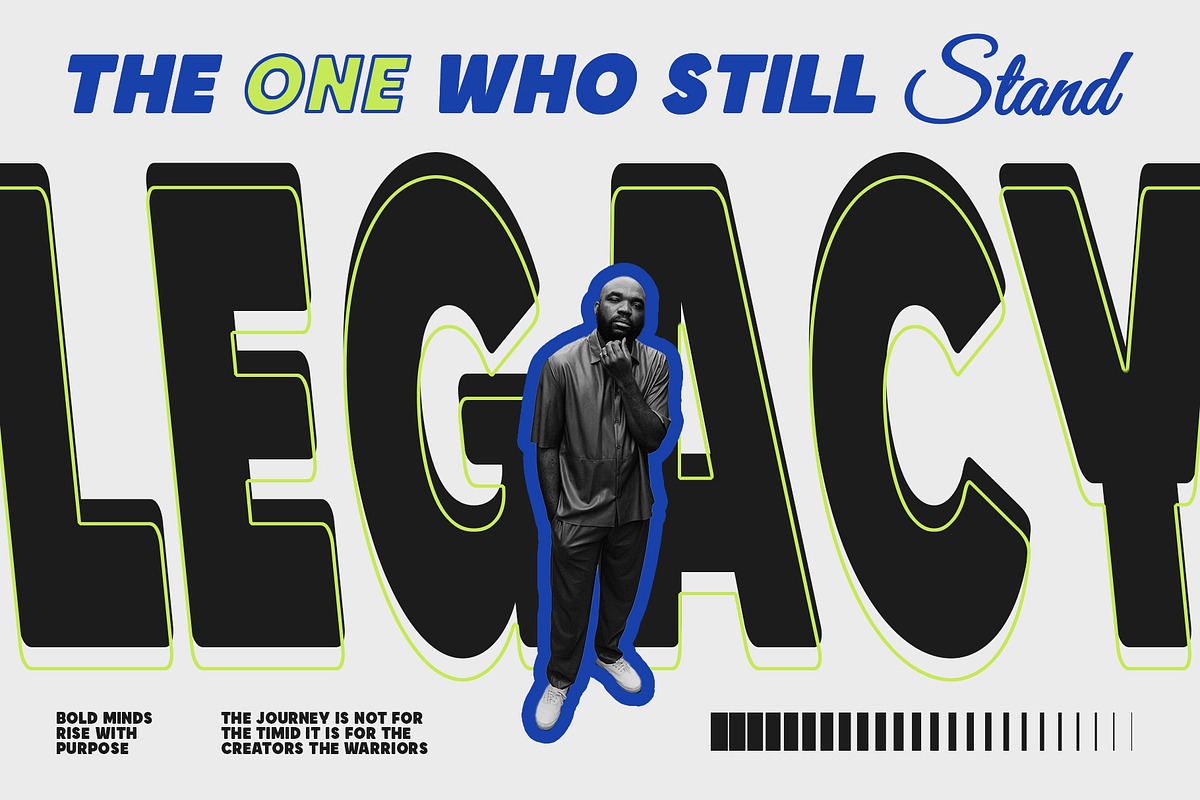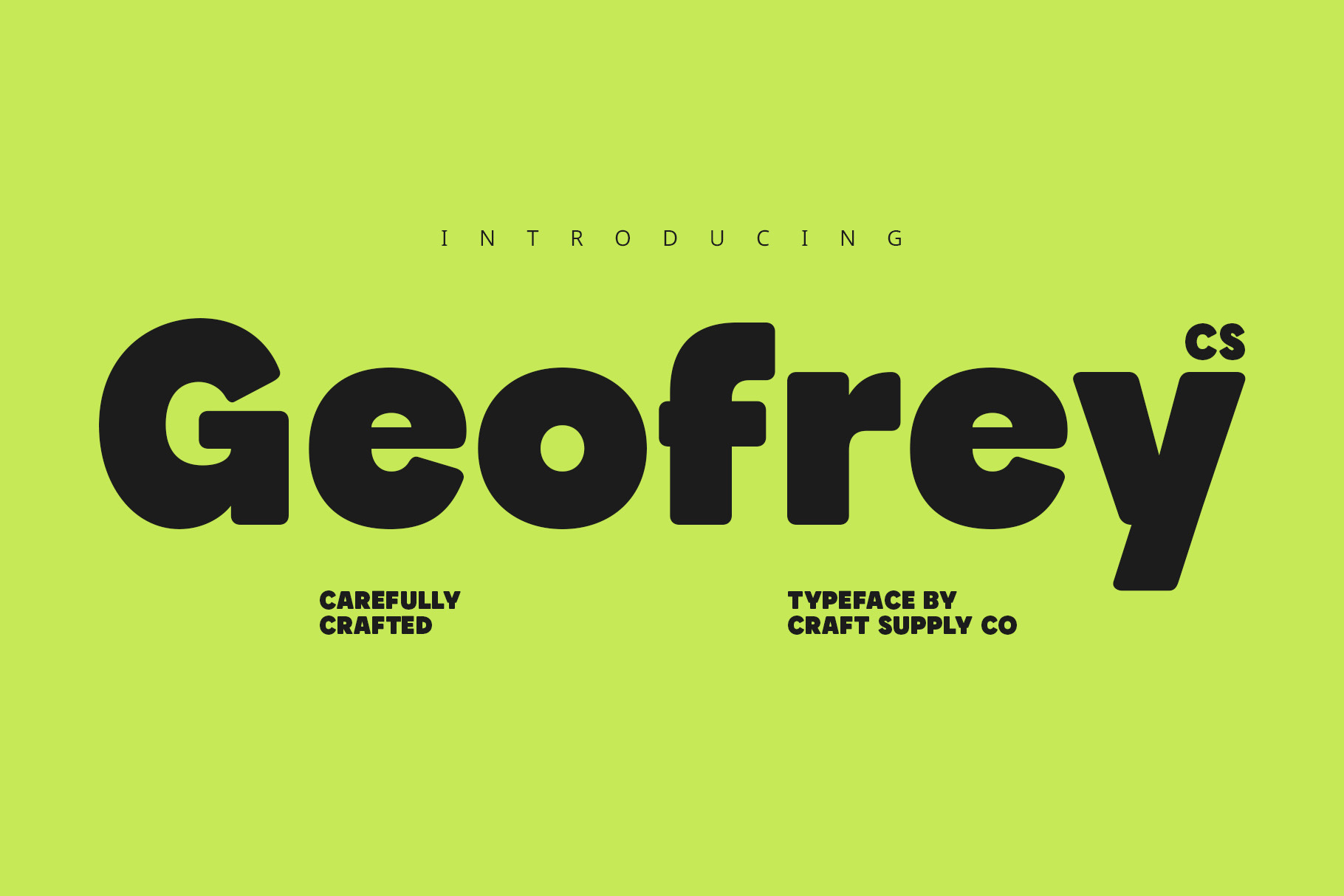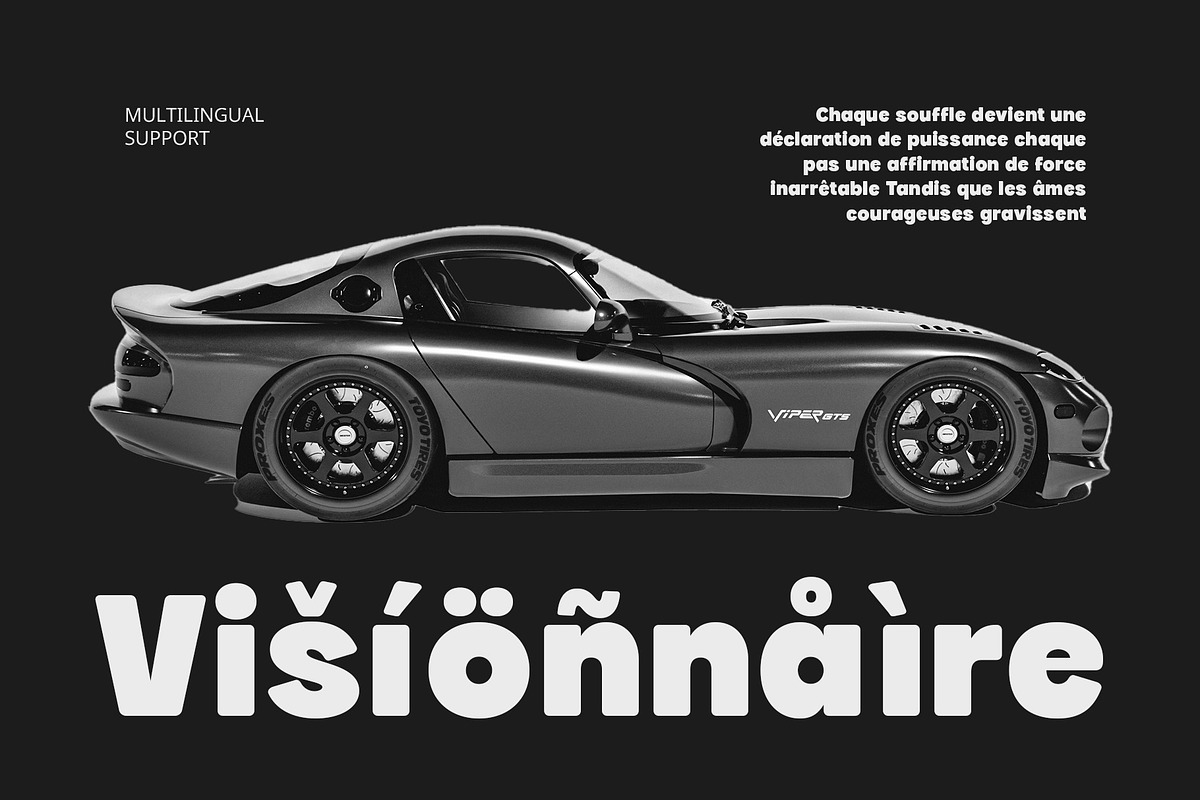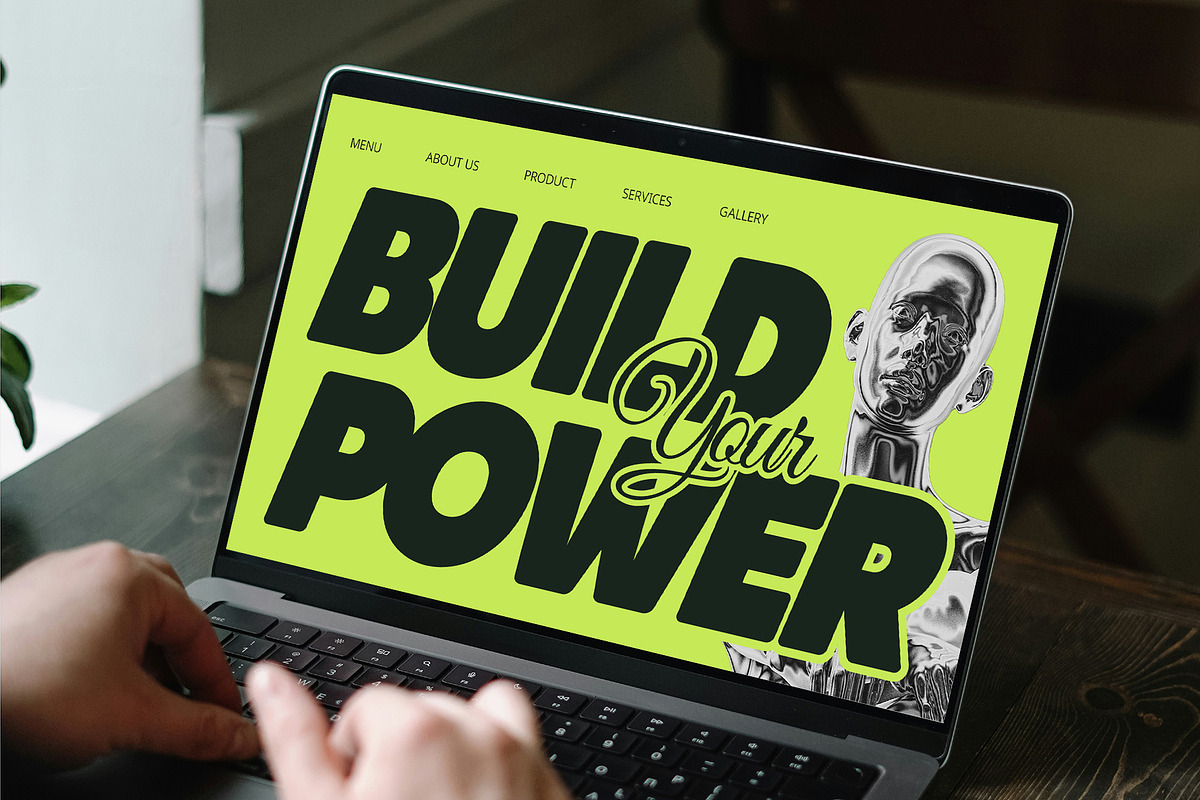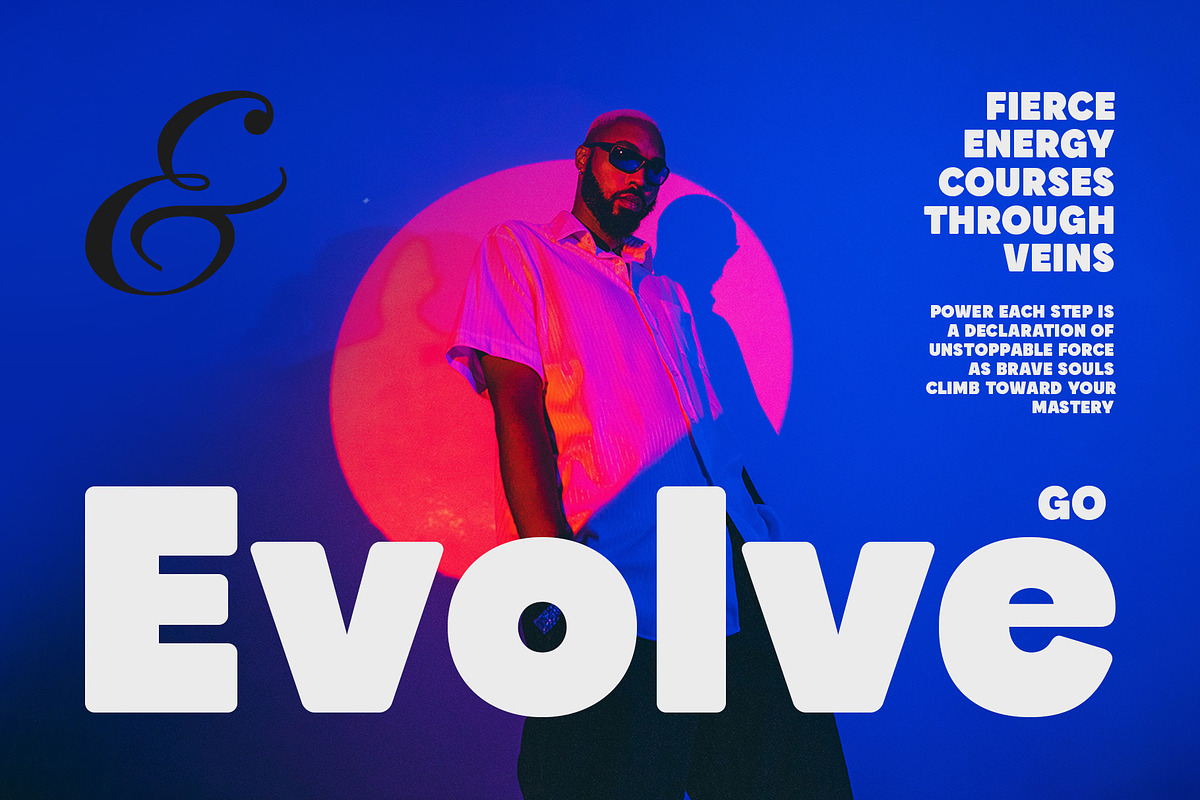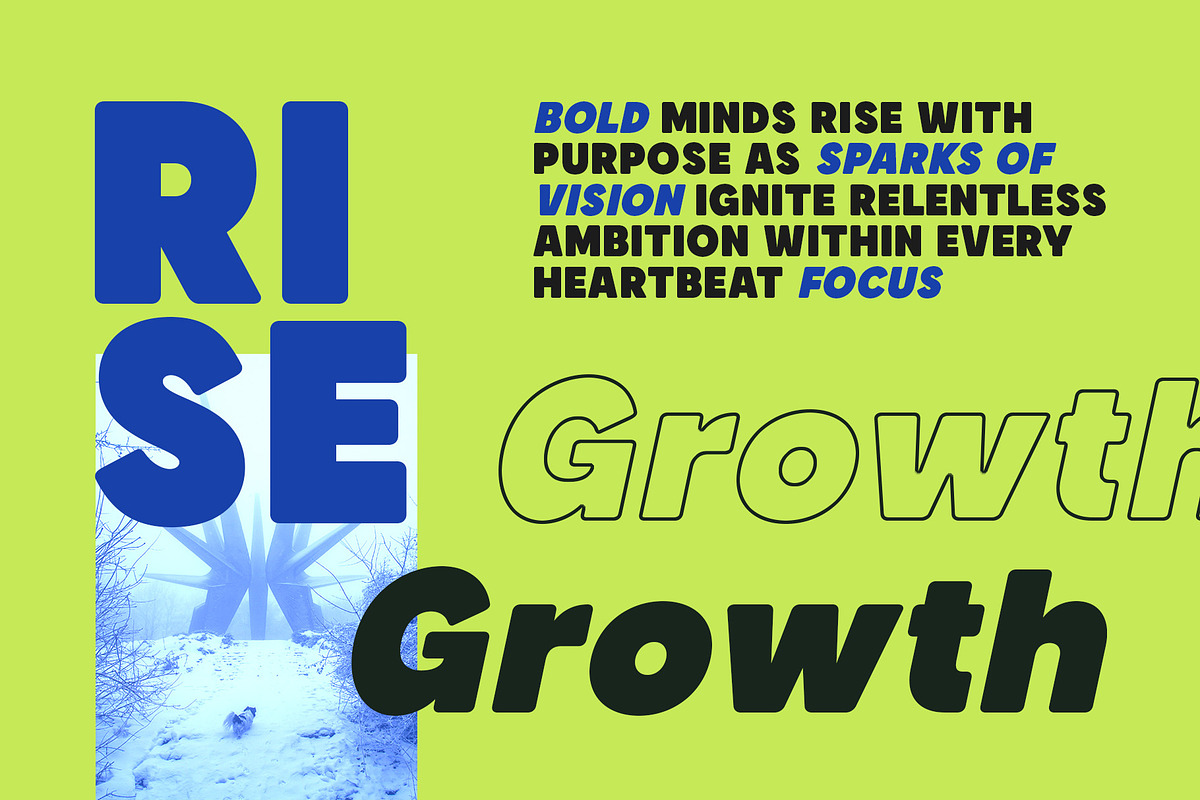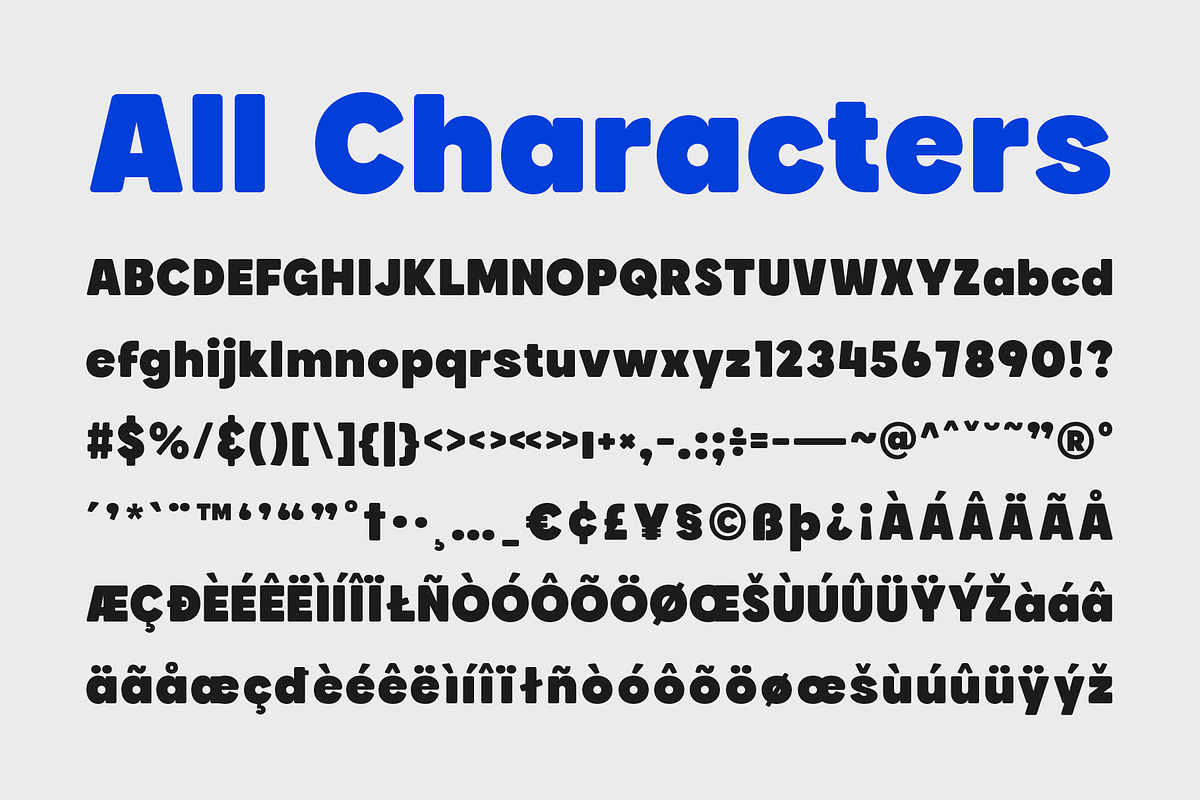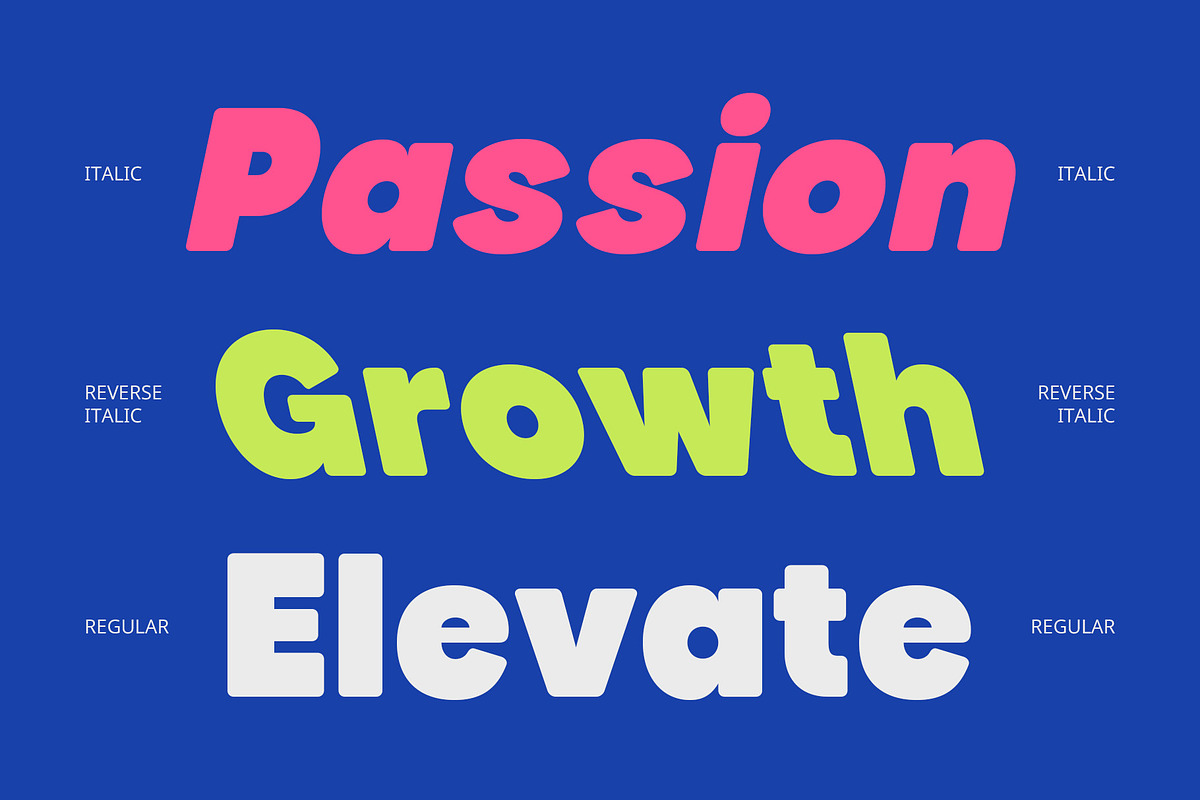
CS Geofrey – Bold Font
CS Geofrey – A Bold Geometric Sans-Serif Font
Precision and Strength in Modern Design CS Geofrey is a bold, clean, and contemporary sans-serif font built on a foundation of precise geometric structure. With strong lines, sharp edges, and consistent letterforms, it creates a visual presence that feels both confident and forward-thinking—perfect for modern applications where clarity and impact are key.
Modern, Minimalist, and Professional This font blends minimalist aesthetics with a powerful and professional tone, offering versatility across a wide range of branding and editorial projects. Its even weight distribution and structured rhythm bring a sense of order and reliability, while still exuding a futuristic, high-tech appeal.
Ideal for Tech, Branding, and Posters CS Geofrey is a smart choice for tech startups, digital platforms, sleek product branding, editorial headlines, or cutting-edge poster designs. Whether used in bold headlines or modern identity systems, it ensures your message is bold, unmistakable, and instantly recognizable.
Bold Simplicity That Speaks Clearly With its geometric form and assertive design, CS Geofrey delivers clear communication with visual strength. It’s a font that brings bold simplicity to life—ideal for designers aiming to craft work that’s modern, structured, and unapologetically bold.